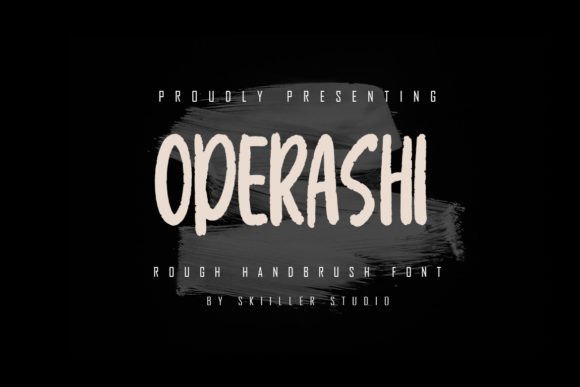
Prepare yourself for a journey back in time with Operashi Font, a remarkable creation from the renowned Skiiller Studio, crafted exclusively for vintage design enthusiasts. Immerse yourself in the beauty of carefully crafted handwritten brush strokes, infused with the charm of vintage typography. Operashi's captivating texture mimics the authentic marks of paint, evoking a sense of nostalgia and timeless elegance.
With Operashi, your designs will transcend the ordinary and leave a lasting impression on your audience. Whether you're a seasoned designer or just starting out, this font will elevate your work to new heights. Its effortless flow and timeless appeal make it the perfect choice for creating stunning logos, captivating posters, eye-catching social media posts, and so much more.
Step into a world where fonts take center stage - a world where Operashi reigns supreme. Its versatility knows no bounds, allowing you to unleash your creativity and turn your design visions into reality. Be it a heartfelt wedding invitation, a vintage-inspired flyer, or an elegant branding project, Operashi is your trusted companion.
Don't settle for ordinary fonts that blend into the background. Embrace the power of Operashi and make a statement that resonates with your audience. Its detailed strokes and lifelike texture will add a touch of authenticity and personality to your designs, leaving a lasting impression that words alone cannot convey.
Join the ranks of discerning designers who appreciate the art of typography. Choose Operashi and embark on a creative journey where vintage charm meets modern elegance. Let your designs speak volumes with this exceptional font, crafted with passion and precision.